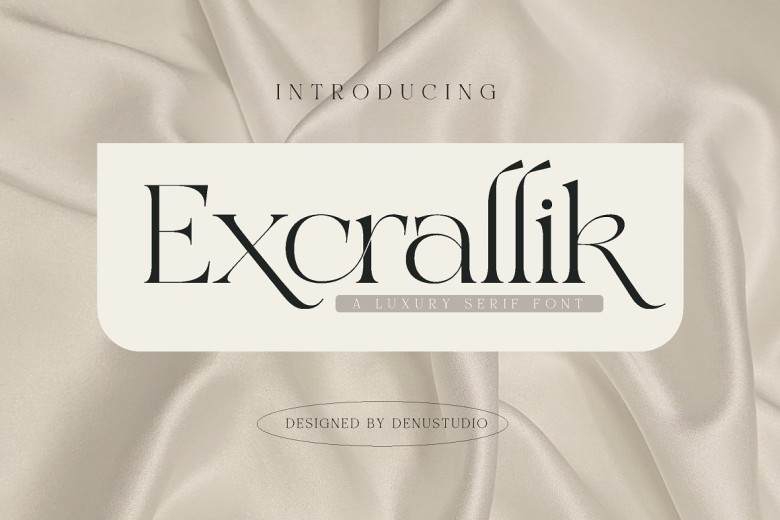
Excrallik Font
Introducing Excrallik Modern Serifs This modern bold and classic serif font is created by DenuStudio, suitable for those who seeks their own style in the next wave of fonts A must-have typeface for elegant & luxury logo, book or movie title designs, modern brand of fashion, magazine branding, clothing designs, lettering, for quotations and for pretty much anything else you can think of.
Excrallik Serif Font